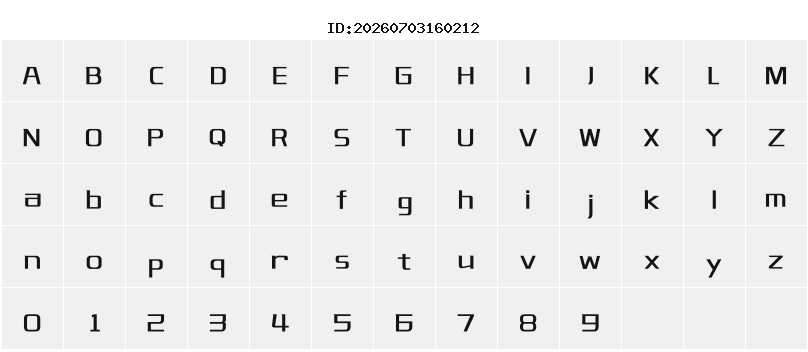
• Font Name: 009-上首宽云体
• Full Font Name: 009-上首宽云体
• Manufacturer: 上首造字
About 009-上首宽云体.ttf
009-上首宽云体.ttf is a modern, elegant sans-serif font designed for ultimate readability and visual harmony. Perfect for branding, headlines, web design, and print materials.